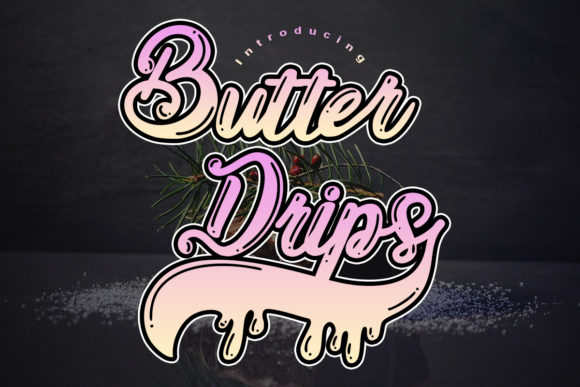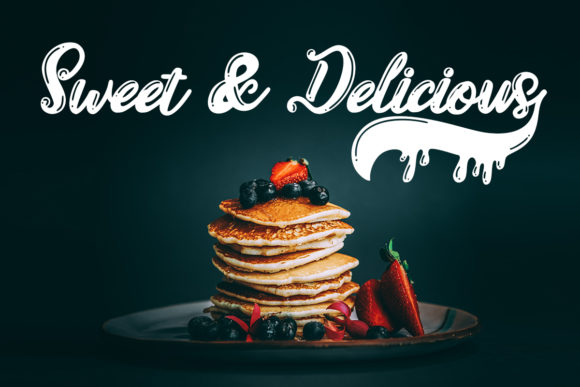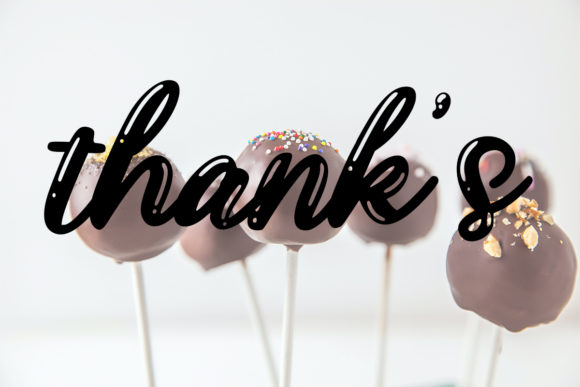
Butter Drips Font
Butter Drips is an original and unique handwritten font. It is PUA encoded which means you can access all of the glyphs and swashes with ease. This font works really well on cake menus, candy shop posters or pretty much any design that seeks to lure customers to buy the products presented.